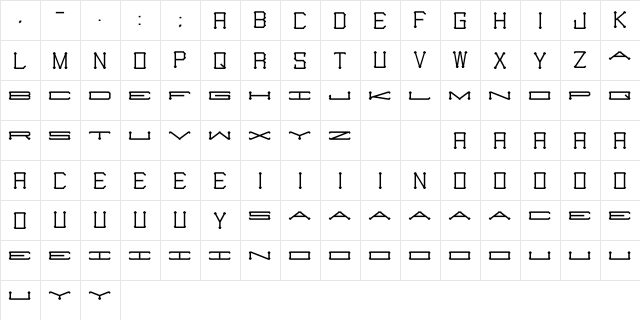
Slugger Monogram Regular
| Foundry | Don Marciano |
| Designer | Juan Miguel Castillo |
Design Context for Slugger Monogram Typeface
Slugger Monogram brings the precise, column-aligned rhythm of monospaced typography to designs that value technical clarity and systematic order.